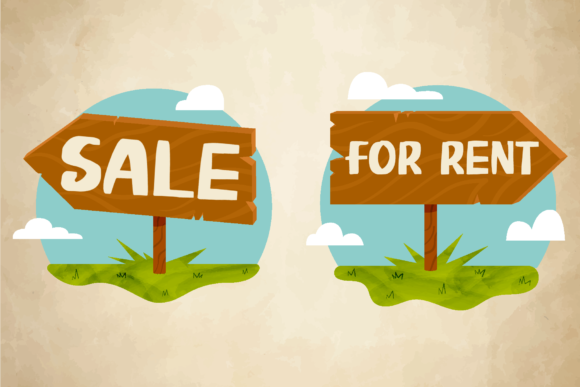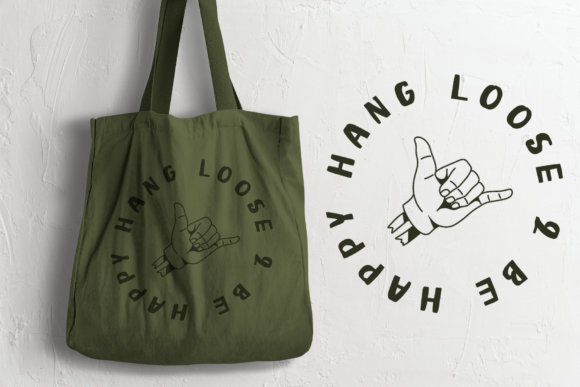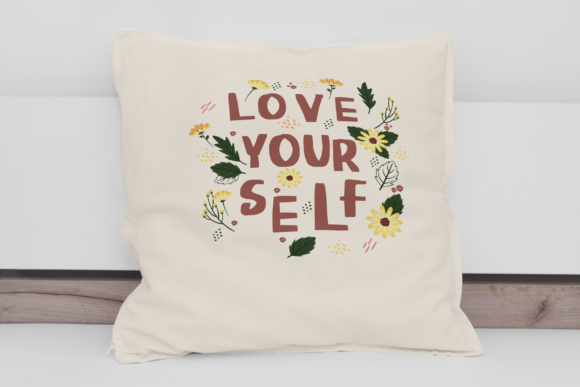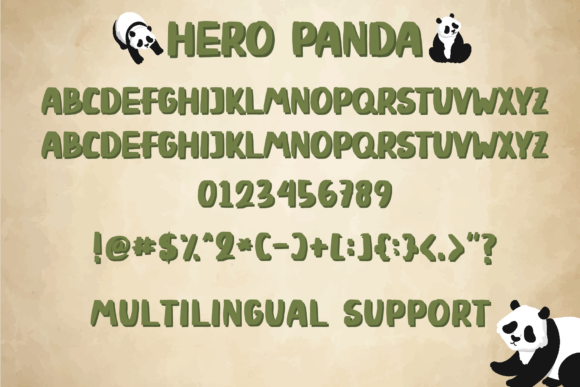
Introduction to Hero Panda Font
Have you ever been stuck in a creative rut, staring at a blank page, searching for that one design element to bring your idea to life? It’s a moment we’ve all experienced, but what if I told you there’s a secret to unlocking your full creative potential? Enter the Hero Panda Font, a playful display font that’s about to become your new go-to design resource.
Imagine adding a touch of whimsy to your promotional design or seasonal crafts with a font that’s as cute as it is versatile. The Hero Panda Font is perfect for designers who want to elevate their simple copywriting and make it stand out in a crowd. With its transparent background and high-quality design, this font is a must-have for any creative project.
Key Features of Hero Panda Font
- Comes in 3 different styles: bold, regular, and light
- Features a unique, playful panda design that adds a touch of whimsy to any project
Honest Review: Hero Panda Font
I recently came across the Hero Panda Font and was excited to dive in and see what it had to offer. As a designer, I’m always on the lookout for high-quality design resources that can elevate my creative projects.
The Hero Panda Font is a free download that boasts a transparent background, making it a great addition to any design. The font is available in a variety of styles and weights, allowing for plenty of flexibility in your design. The font is also highly customizable, making it a great resource for designers who want to add a unique touch to their work.
- High-quality design with a transparent background
- Available in a variety of styles and weights
- Some users may find the font to be too playful or cutesy for certain designs
Overall, I’m impressed with the Hero Panda Font. It’s a great addition to any design resource library and is sure to add a unique touch to your creative projects. While it may have some limitations, the benefits far outweigh the drawbacks.
Some tips for getting the most out of the Hero Panda Font include using it in bold or italic styles to add emphasis, and combining it with other fonts to create a unique look.
The Hero Panda Font is commonly used in designs such as logos, posters, and social media graphics. It’s also a great choice for presentations, documents, and other business materials.